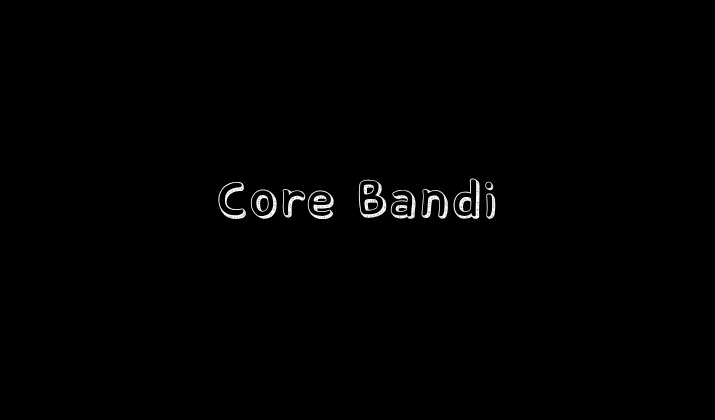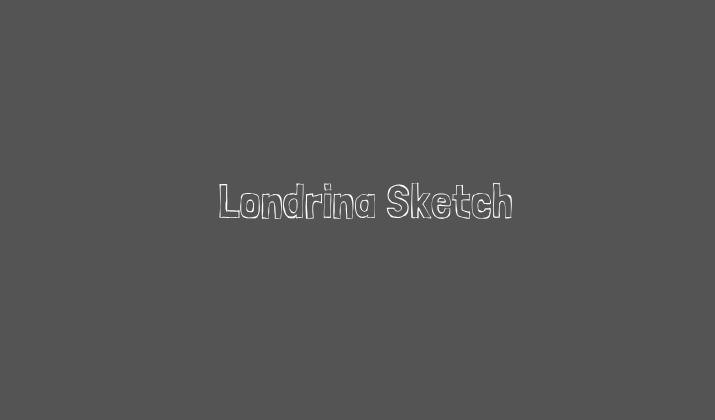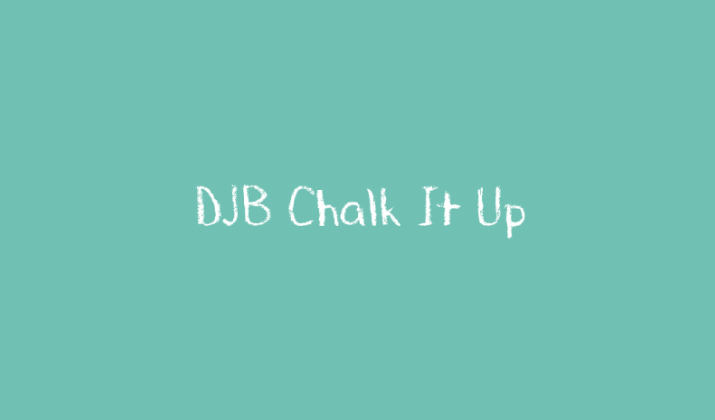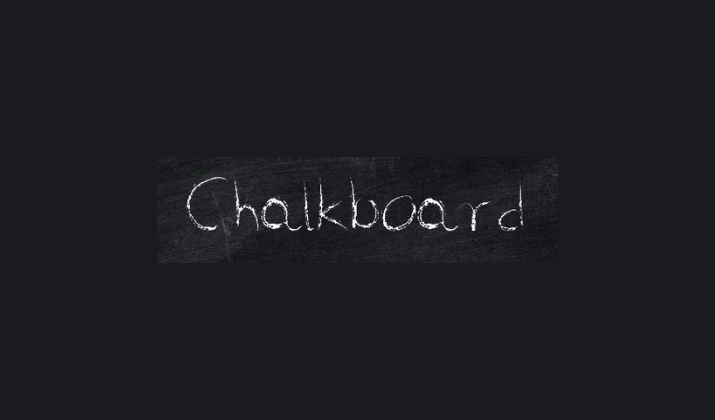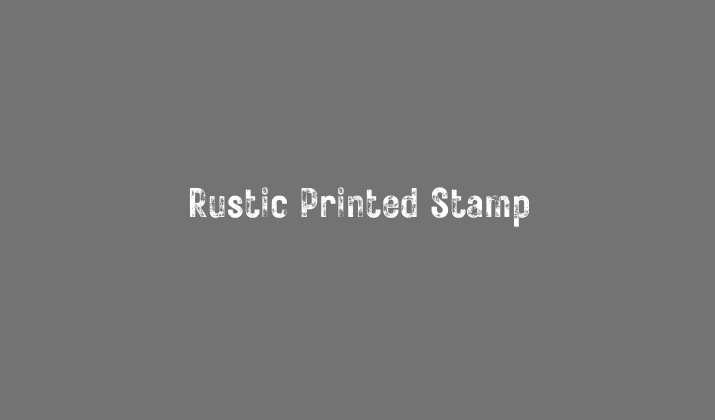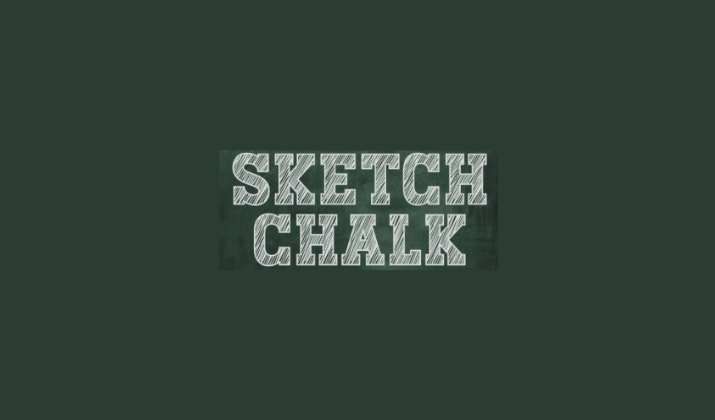
Chalk-like fonts mimic the rough, textured, and hand-drawn appearance of writing with chalk on a blackboard.
They often feature sketchy outlines, uneven strokes, and grainy textures that make them look authentic and playful.
These fonts are commonly used in school-related designs, restaurant menus, café signboards, event posters, or any creative project where you want to add a casual yet nostalgic feel.
They’re also popular for digital art, branding, and social media graphics where a handmade, organic touch works best.
In this list, we’ll explore some of the best chalk-style fonts that can help you create designs with charm and character.
Best Fonts That Look Like Chalk
1. Rudiment
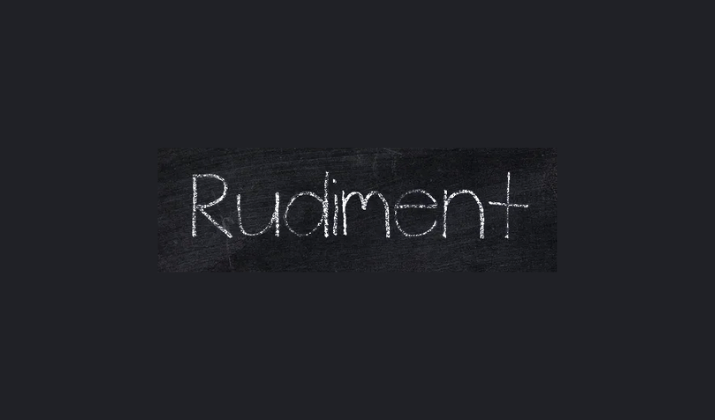
Rudiment is a clean yet rustic chalk-style font that captures the authentic strokes of hand-drawn chalk writing.
It has a slightly textured finish that makes it ideal for digital projects emulating a school blackboard or a casual coffee shop menu.
The font balances legibility with character, ensuring your message is clear while still giving off a creative vibe.
Designers often choose Rudiment for posters, event signage, and DIY-themed graphics. Its soft edges and imperfect lines help bring a handmade feel to modern layouts.
Whether you’re designing for children’s activities or a rustic wedding invitation, Rudiment adapts well. It’s versatile while still maintaining that chalkboard nostalgia.
2. Dusty Chalk
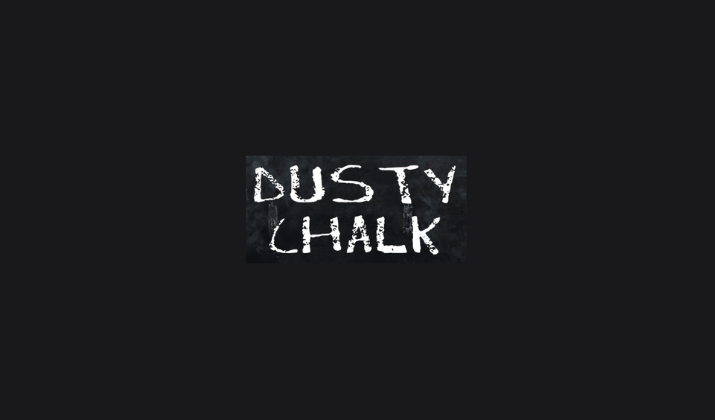
Dusty Chalk is a bold font with a distinct powdery texture that mimics real chalk residue.
It has a grainy appearance that works beautifully on dark backgrounds, especially black or slate-like textures.
The font has a slightly playful yet strong feel, making it perfect for attention-grabbing titles.
Dusty Chalk is frequently used in café boards, party flyers, and classroom presentations where you want to make the text look approachable and fun.
It’s particularly effective when paired with illustrations or doodles to complete the chalkboard aesthetic.
The uneven, dusty strokes make it feel authentic rather than polished. With its raw finish, it’s great for adding energy to casual design projects.
3. Chalkduster
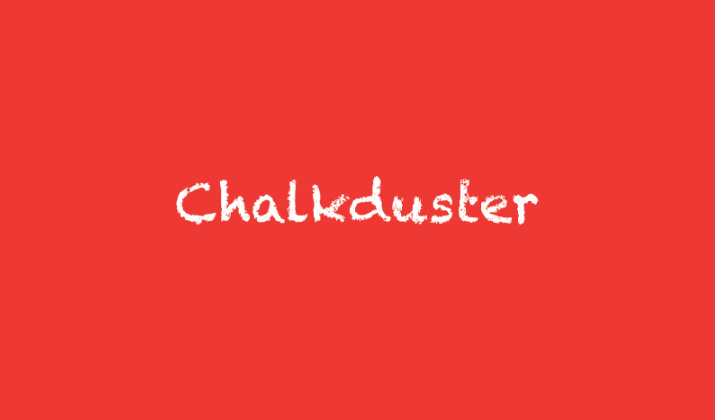
Chalkduster is one of the most recognizable chalk fonts and comes pre-installed on many Mac devices.
Its sketchy, scattered texture is reminiscent of quick chalk writing that hasn’t been cleaned fully from the board. Designers love it for its playful personality and legibility in larger sizes.
It’s often used in educational materials, games, or themed social media posts. While it can appear messy in small text, it works wonderfully for bold headlines and expressive displays.
Chalkduster gives off a lighthearted, childlike quality that makes it great for informal settings. It has remained a go-to font for those wanting an authentic chalk look without extra downloads.
4. Cabin Sketch
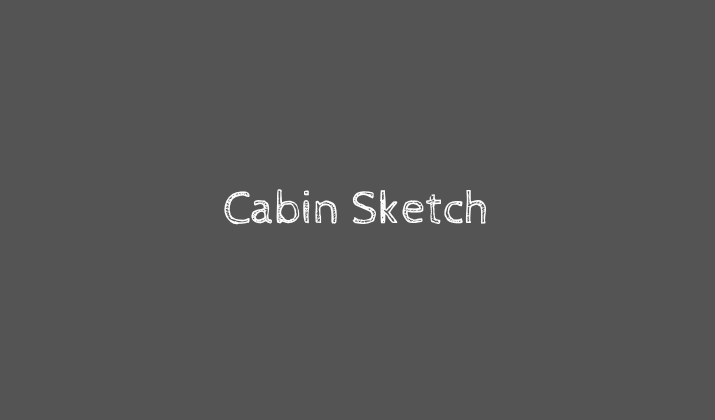
Cabin Sketch blends the structured form of a sans-serif with the rough look of a chalk outline.
Its strokes appear as though they’ve been loosely sketched, giving the font an artistic personality.
The combination of readability and texture makes it perfect for projects that require both style and clarity. It’s often used in branding for creative businesses, such as art studios or craft shops.
The font works well for digital designs as well as printed invitations with a handmade touch. Cabin Sketch is especially effective in designs that pair chalk with doodle-style graphics.
Its casual yet professional appearance gives it a wide range of uses.
5. Rubik Dirt
Rubik Dirt is a playful twist on the classic Rubik typeface, featuring grainy and worn-out textures that resemble chalk dust.
The font manages to balance fun with readability, making it useful for posters, infographics, and event designs.
Its distressed look is eye-catching, especially on colored backgrounds or when paired with illustrations. Rubik Dirt has a modern edge while still keeping that chalky texture alive.
It’s particularly popular for digital projects that want to stand out with a bold, chalk-inspired style.
Unlike some sketchy fonts, Rubik Dirt maintains a consistent structure that keeps it professional. It’s both stylish and practical for creative branding.
6. Sensa Wild Dotoutline Shade
Sensa Wild Dotoutline Shade is a unique chalk-inspired font that uses dotted outlines to create a sketchy, playful effect.
Instead of a filled-in chalk texture, it relies on irregular outlines that look like they’ve been drawn with light chalk strokes.
This gives it a whimsical, artistic flair perfect for children’s projects, playful branding, or creative posters. The font feels experimental and can be paired with colorful backgrounds for added vibrancy.
Conclusion
Chalk-like fonts bring a sense of creativity, nostalgia, and handmade charm to any design project.
From playful and sketchy styles to bold and vintage-inspired options, the fonts on this list cover a wide range of aesthetics.
Whatever you make, these fonts will help you achieve that authentic chalkboard effect.
Try experimenting with dark backgrounds and hand-drawn elements to enhance the look even further.